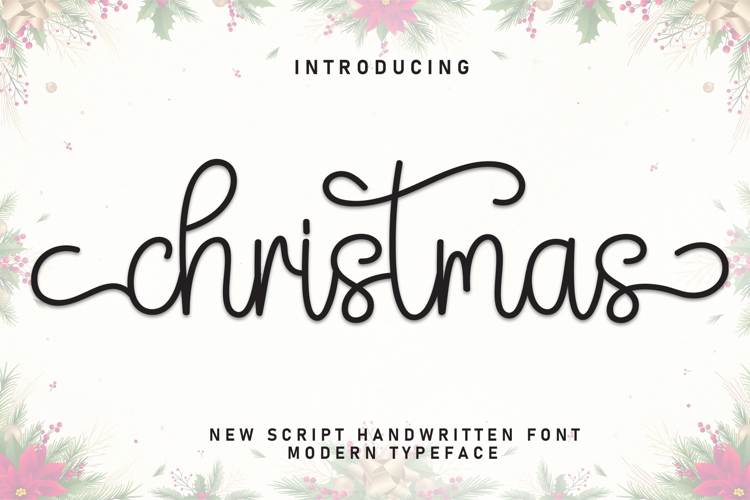
Christmas Together - A sweet handwritten font
Christmas Together is a sweet and cute handwritten font. Fall in love with its incredibly versatile style and use it to create gorgeous wedding invitations, beautiful stationary art, eye-catching social media posts, and much more!
- Alternate swashes letter (begin swashes and end swashes, Heart Connecting)